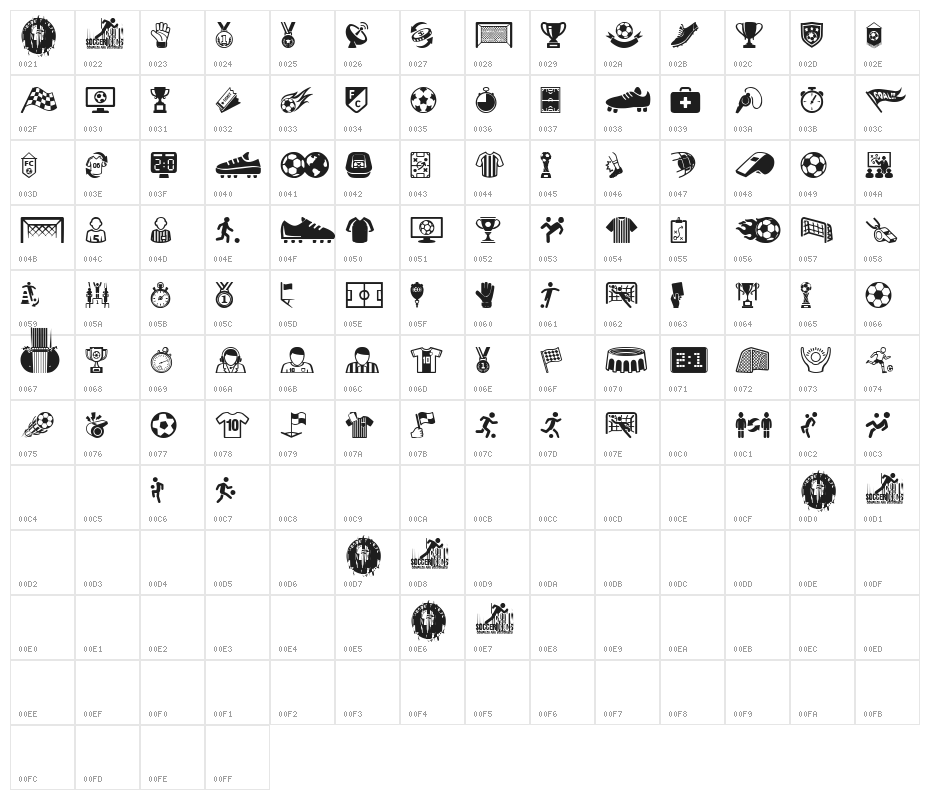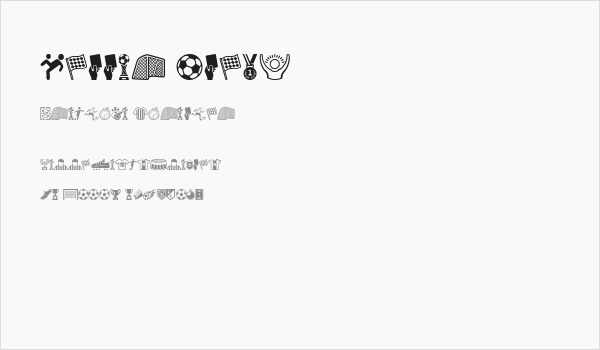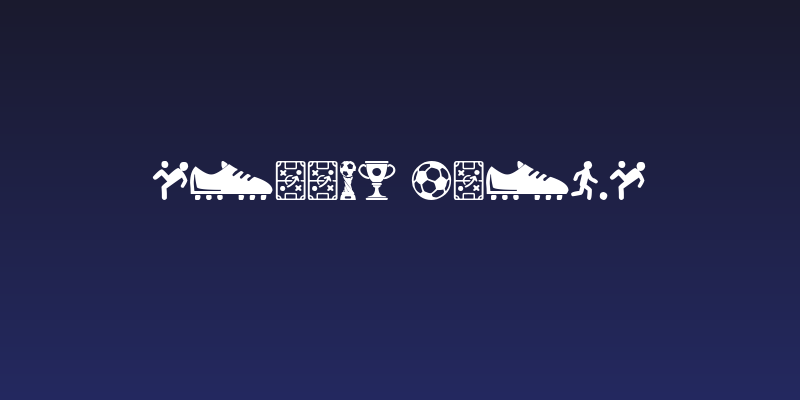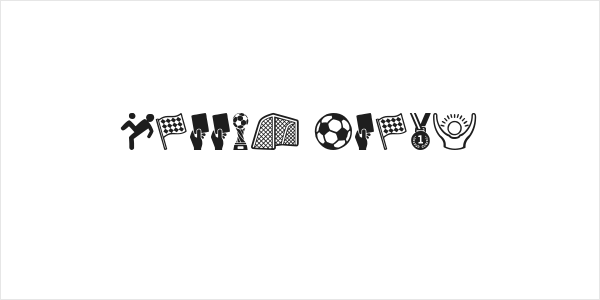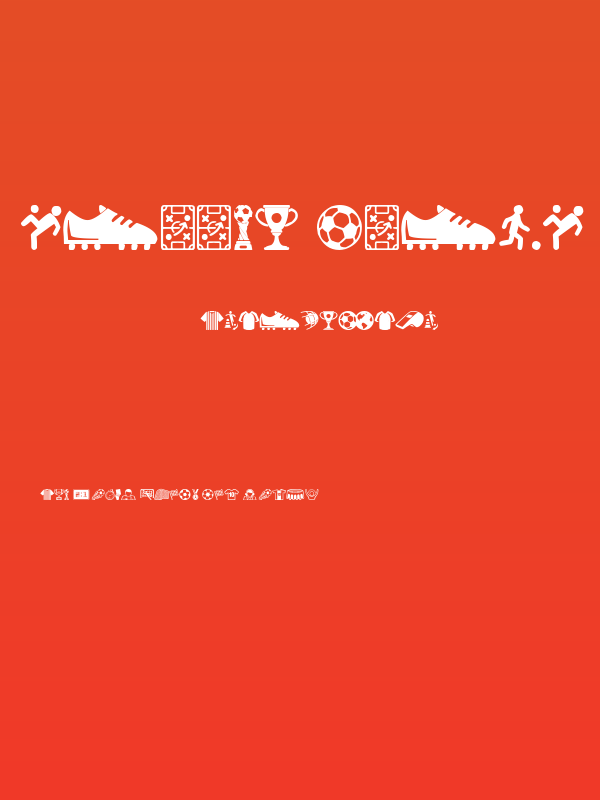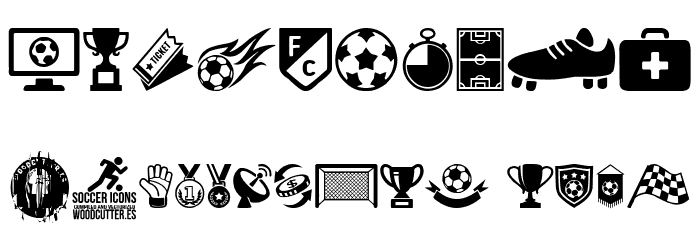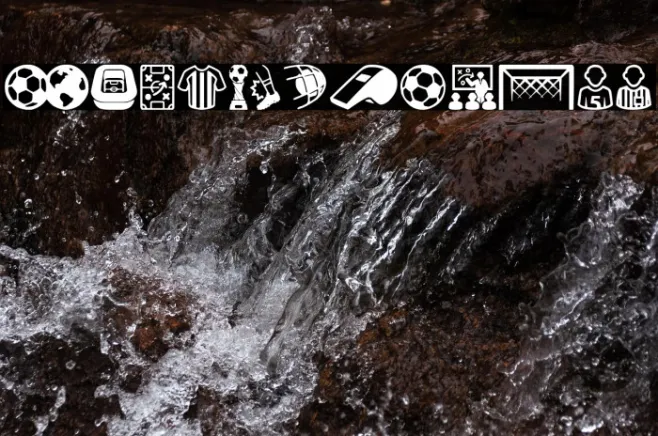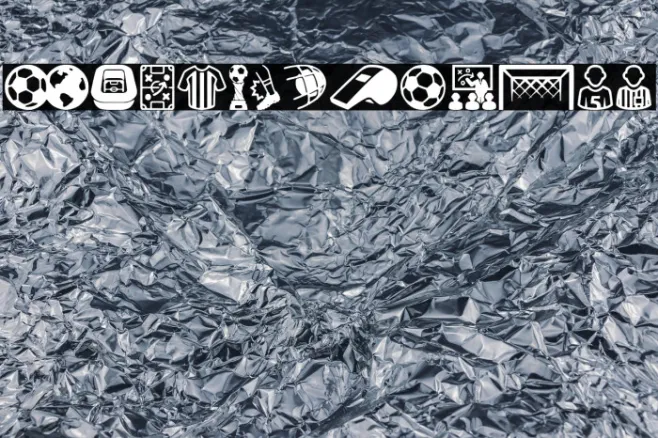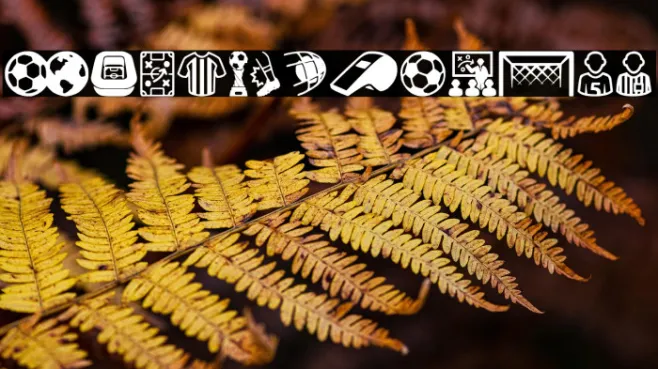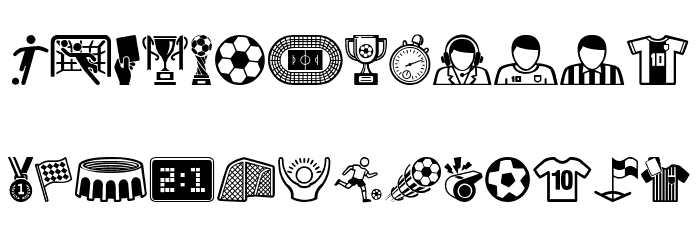
Soccer Icons Font
Soccer Icons Description
A collection of bold, high-contrast soccer-themed pictograms and icons, featuring clear outlines and simplified shapes for easy recognition, suitable for both digital and print use.
| Use Case | Icons, Logos, Infographics, Posters |
| Proposed Projects | Sports apps, event posters, infographics, team branding, educational materials. |